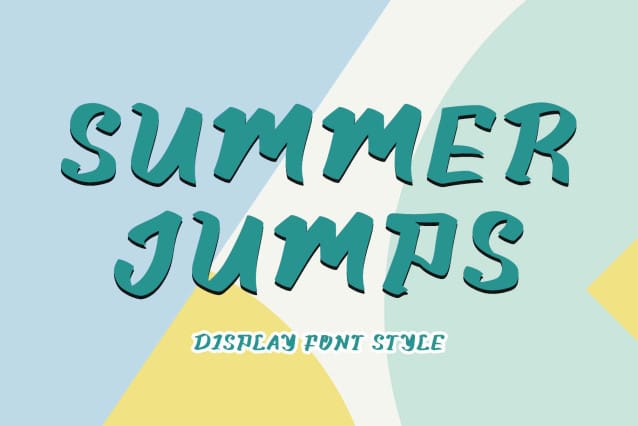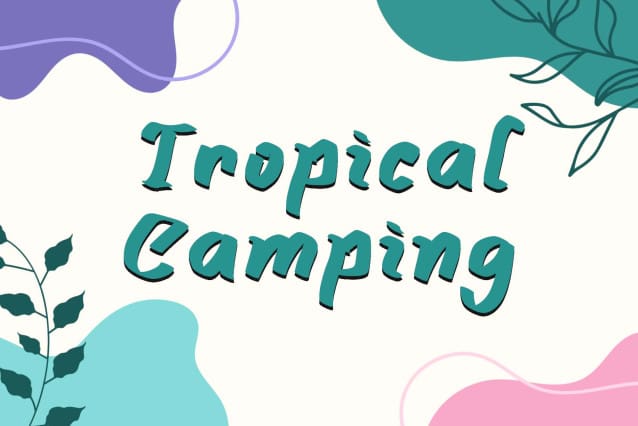
Summer Jumps Font
Summer Jumps Font is a very elegant display font. This font is equipped with uppercase, lowercase, numerals, punctuations and multilingual support. Very suitable for summer, camping, vacation, parties, logos, father’s day, Christmas, weddings, back to school and others.